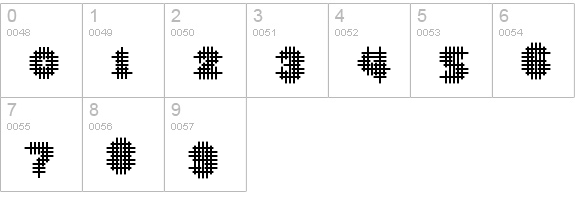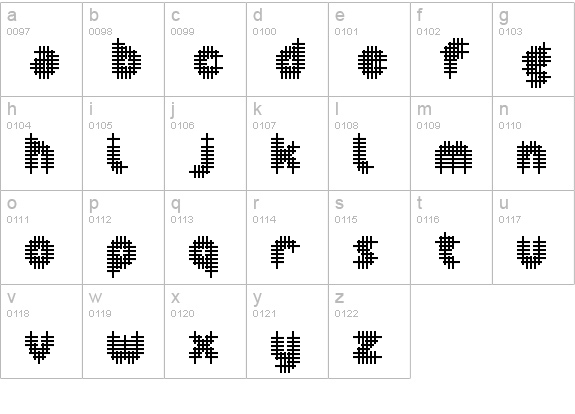
Overcross Bold Font Details
Overcross Bold is a strong, high-contrast variant in the Overcross typeface family \xE2\x80\x94 well suited to headlines, attention-grabbing titles, and strong calls-to-action.
Introducing Overcross Bold, a striking and versatile font that commands attention with its strong, bold letterforms. Perfect for headlines, titles, and branding projects, Overcross Bold exudes confidence and modernity. Its clean lines and sharp edges make it a standout choice for any design application. Best of all, Overcross Bold is available for free download at FontsMarket.com. Now you can elevate your designs with this eye-catching font without any cost. Don't miss out on this opportunity to add a touch of boldness to your projects with Overcross Bold. Download it today and let your creativity shine!